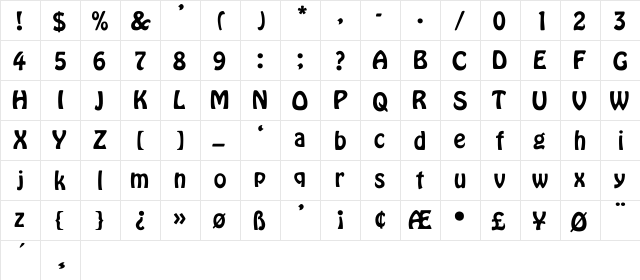
Park Ridge Bold Regular
Design Context for Park Ridge Bold Typeface
Park Ridge Bold takes a measured approach to typography — its balanced proportions and neutral character make it a reliable workhorse for both digital and print work. The heavy weight commands attention and anchors typographic hierarchies.